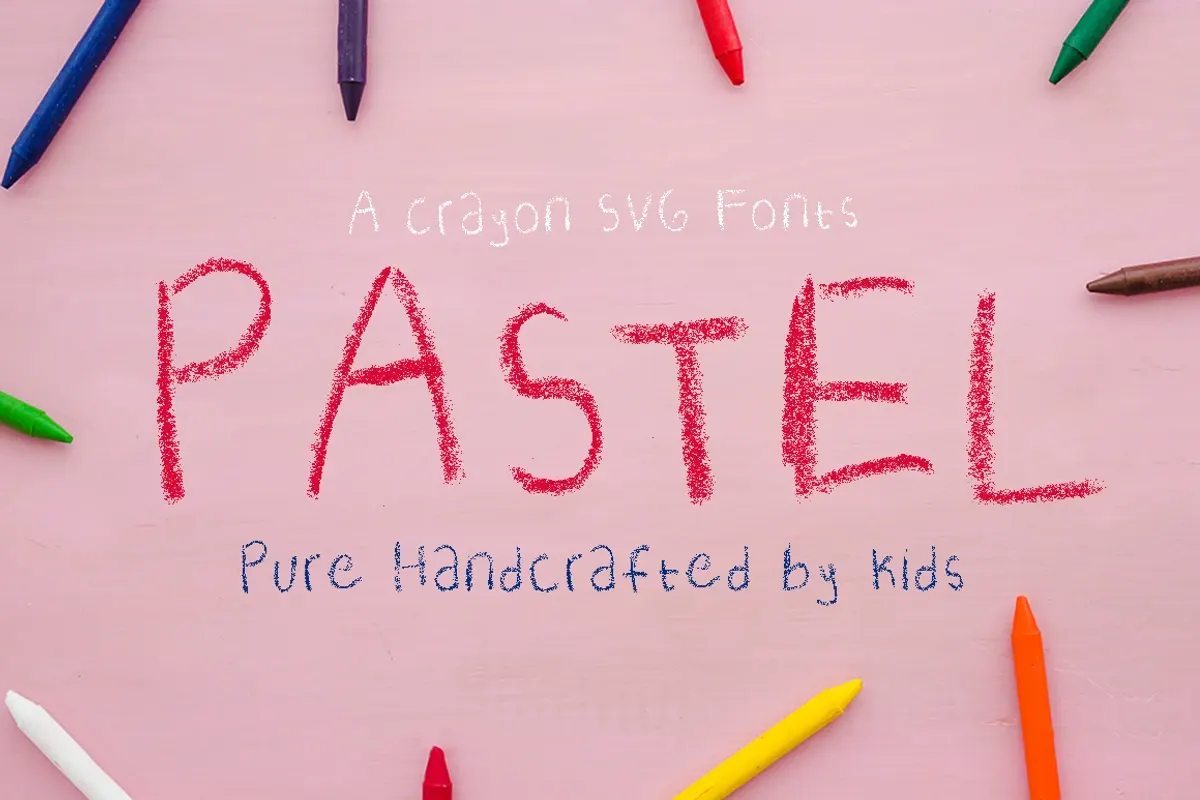
Crayon SVG Fonts | Pastel Free Download is a playful and textured typeface that captures the soft, smudgy charm of real crayon strokes—perfect for children's projects, creative branding, classroom materials, storybooks, and DIY crafts. With its pastel-inspired colors and hand-drawn style, this SVG font brings warmth, creativity, and a tactile feel to your designs.
Each letter in Crayon SVG Fonts | Pastel Free Download is rich in detail, offering a true-to-life crayon effect that standard fonts can’t match. Whether you're designing for a kids’ party, an educational app, or a cozy handmade brand, this font adds authenticity and fun with every stroke.